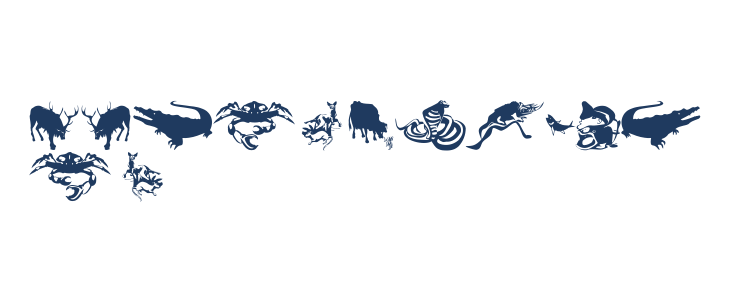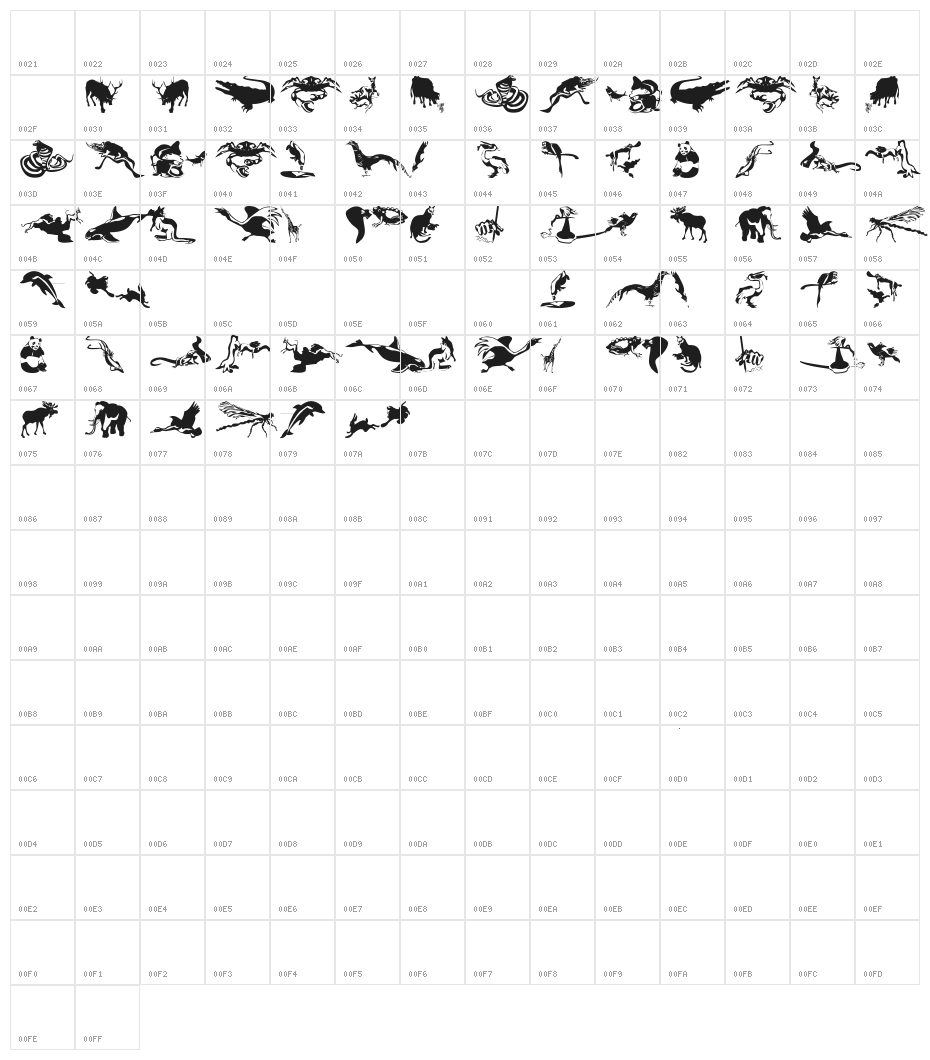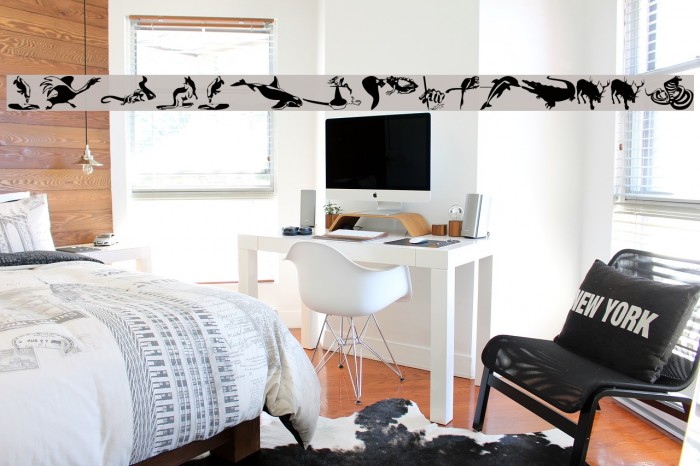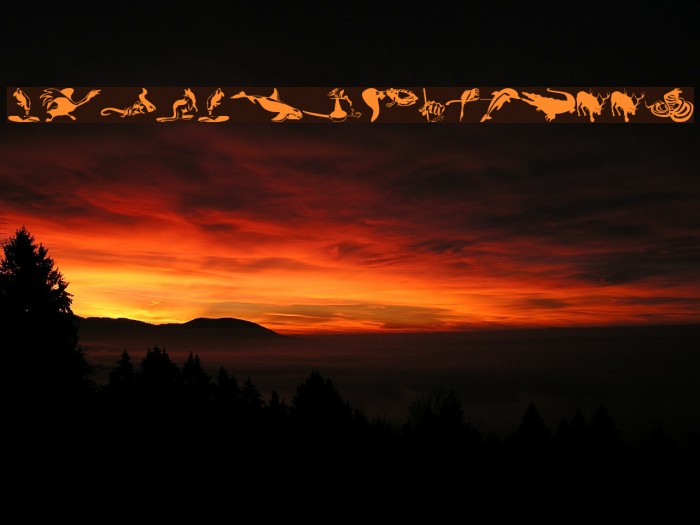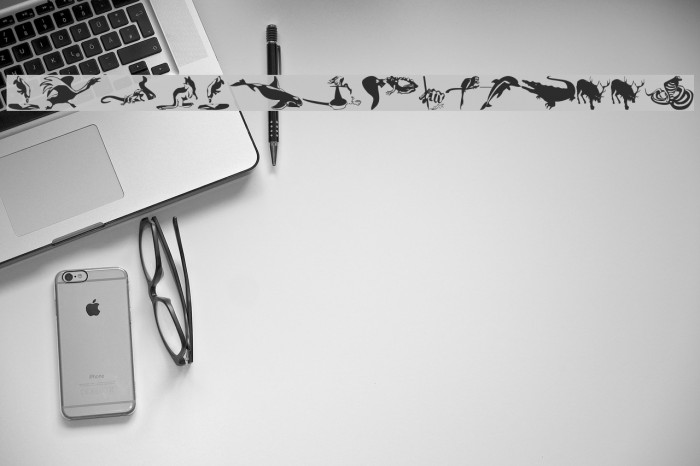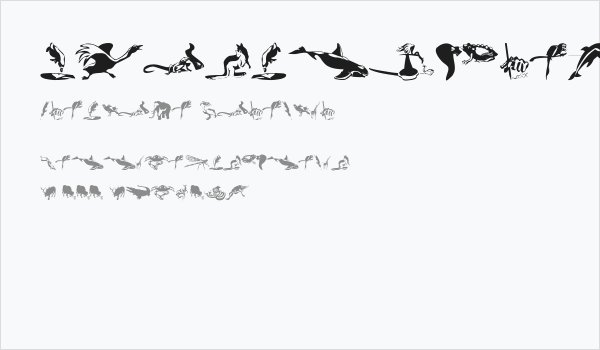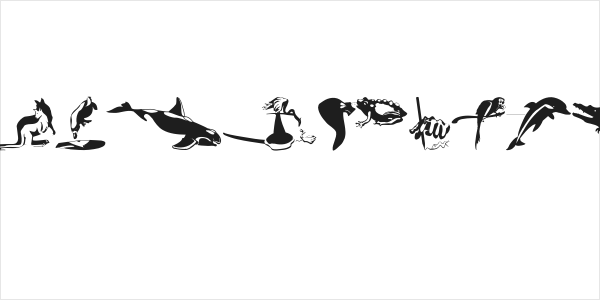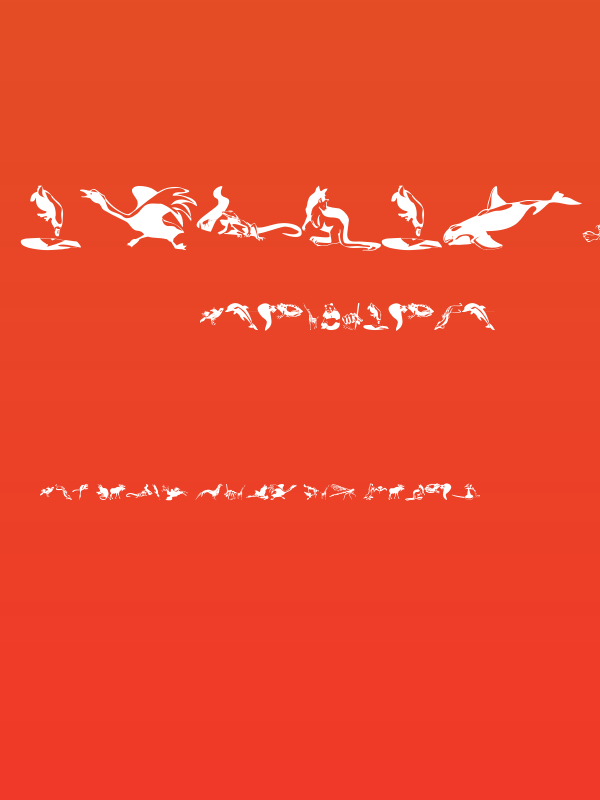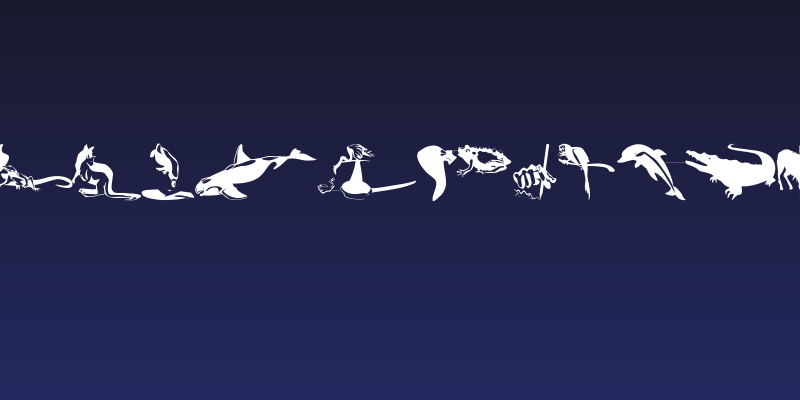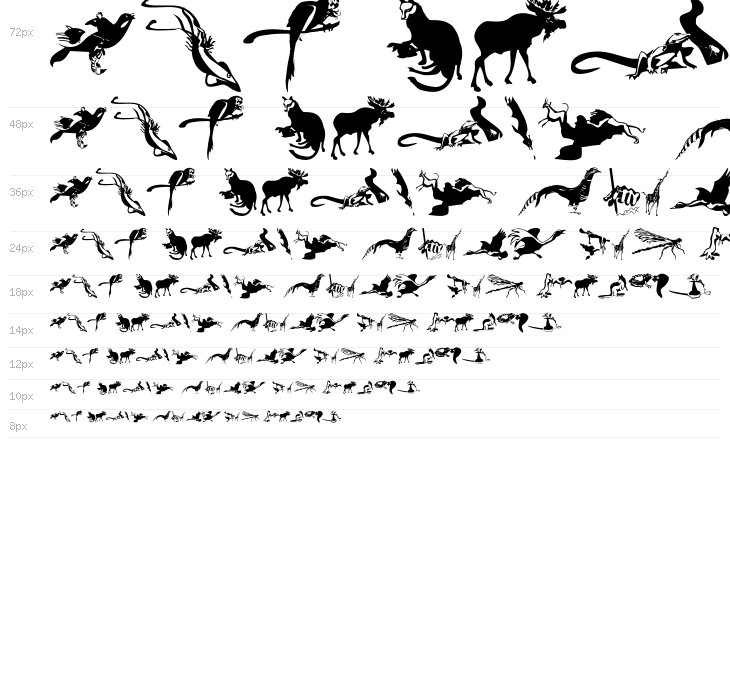
AnimalsPrey-2006 Font
AnimalsPrey-2006 Description
A decorative display font composed of animal silhouette illustrations forming each character, with a mix of predator and prey animals in dynamic poses. The glyphs are highly detailed and visually complex, making each letter unique and illustrative rather than traditionally typographic.
| Overall Style | Decorative, Illustrative, Playful |
| Use Case | Logos, Posters, Headlines, Themed Graphics |
| Proposed Projects | ChildrenΓ’β¬β’s books, wildlife posters, educational materials, themed event invitations, creative branding. |